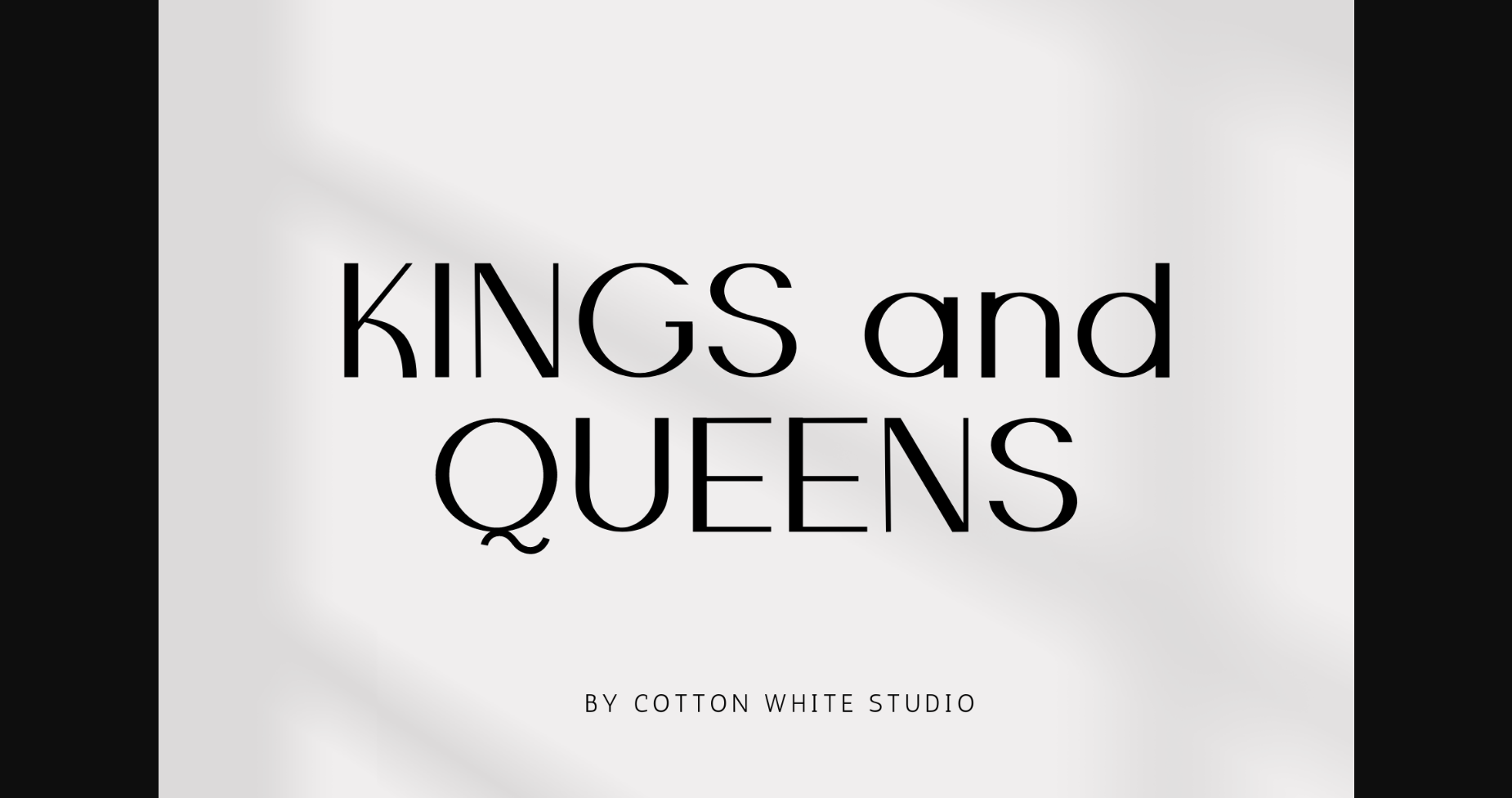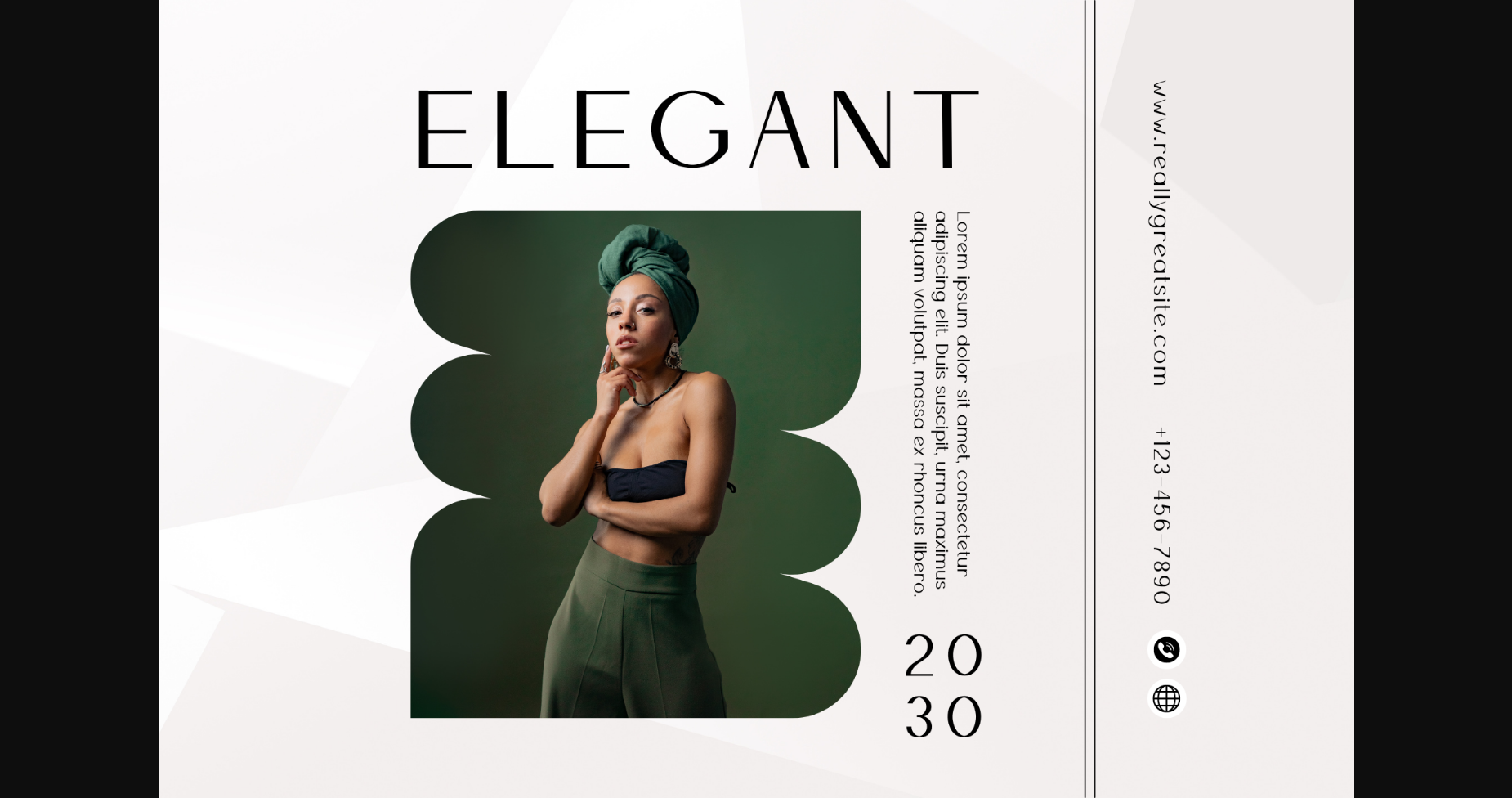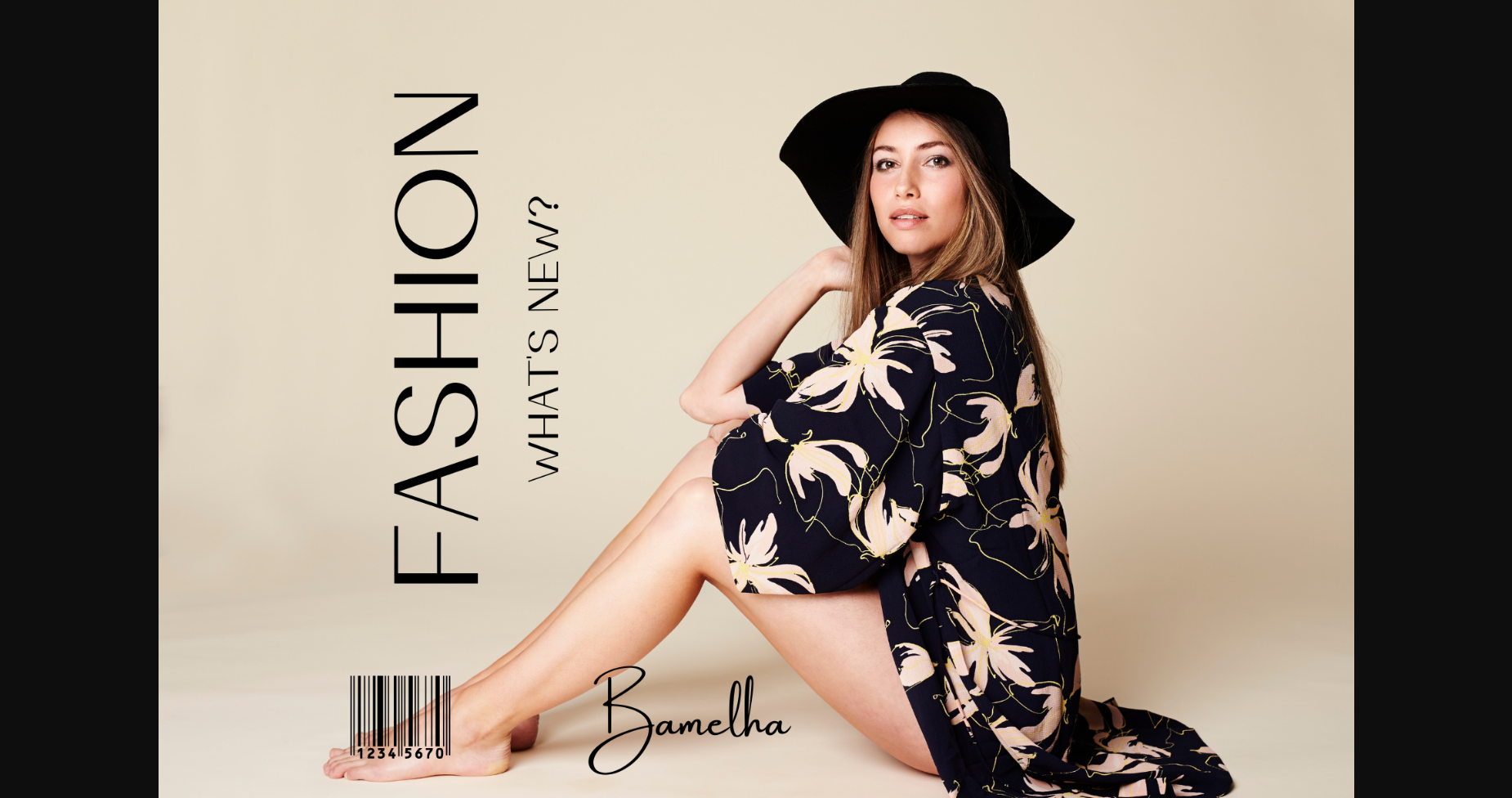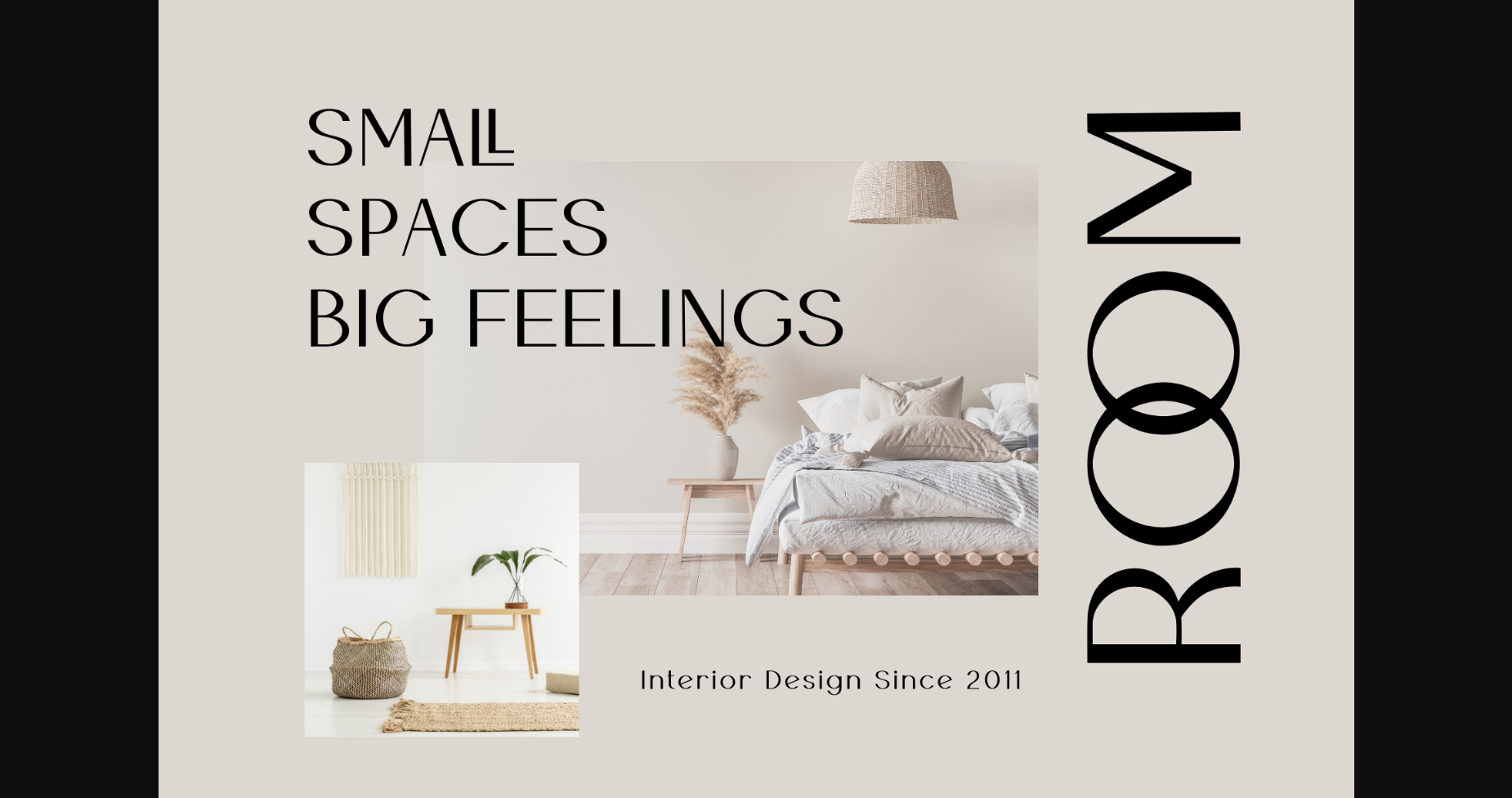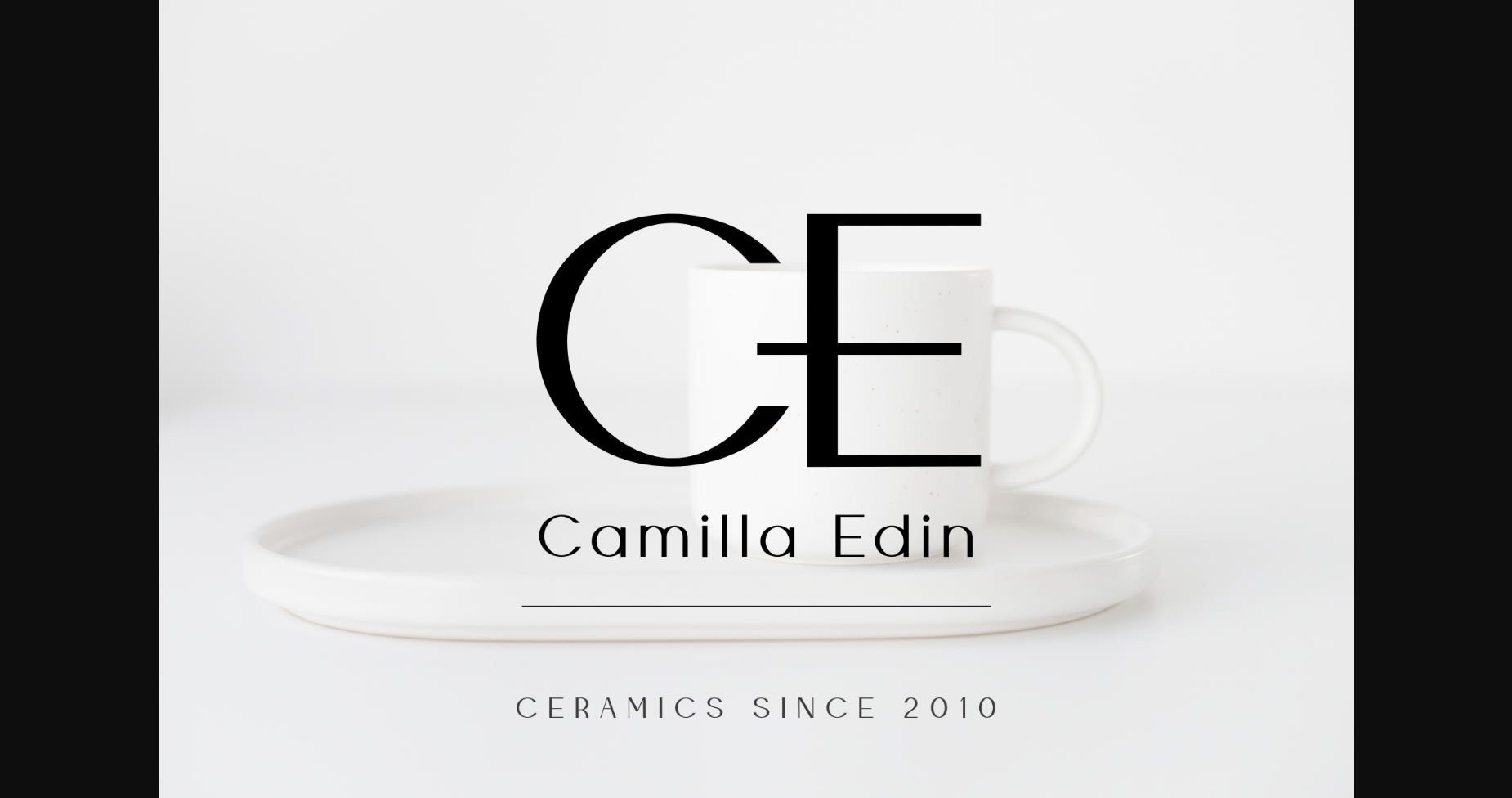
About Kings and Queens Font
Kings and Queens is a modern sans-serif font. With a clean and contemporary design, it’s a great choice for any project that needs a professional touch. Whether you’re working on a website, branding materials, or marketing campaigns, this font is sure to become a go-to in your design toolkit.